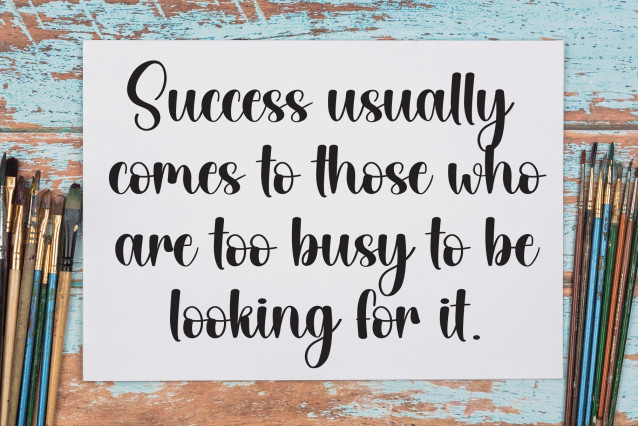
Bridgerton Calligraphy Font
Bridgerton Calligraphy Font is a trendy handwritten font with a contemporary atmosphere and impeccable form, inspired by timeless classic calligraphy. It will add elegance and class to any of your design projects.